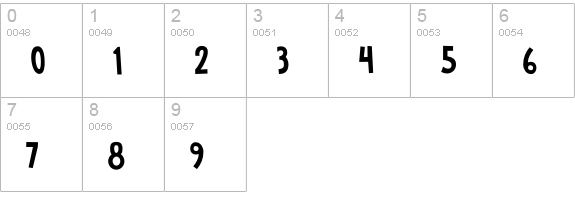
DK Prince Frog Font Details
Introducing DK Prince Frog, a whimsical and charming font that will bring a touch of magic to your designs. This delightful typeface is inspired by fairy tales and enchanted forests, capturing the essence of playful and imaginative storytelling. DK Prince Frog features a unique combination of bold and delicate letterforms, creating a harmonious balance that is both eye-catching and easy to read. The rounded edges and graceful curves give this font a friendly and approachable feel, perfect for adding a touch of warmth and enchantment to any project. One of the best things about DK Prince Frog is that it is completely free to use. Yes, you read that right – this delightful font is available for download at FontsMarket.com, where you can easily and freely access it to add a touch of whimsy to your designs. Whether you're designing a children's book cover, creating a magical logo, or adding a playful touch to your social media posts, DK Prince Frog is the perfect choice. Its versatility allows it to be used in a variety of design applications, and its free availability makes it accessible to designers of all skill levels. So why wait? Let your creativity leap to new heights with DK Prince Frog. Download this captivating font today and watch as your designs come to life with a sprinkle of fairy dust and a dash of imagination.